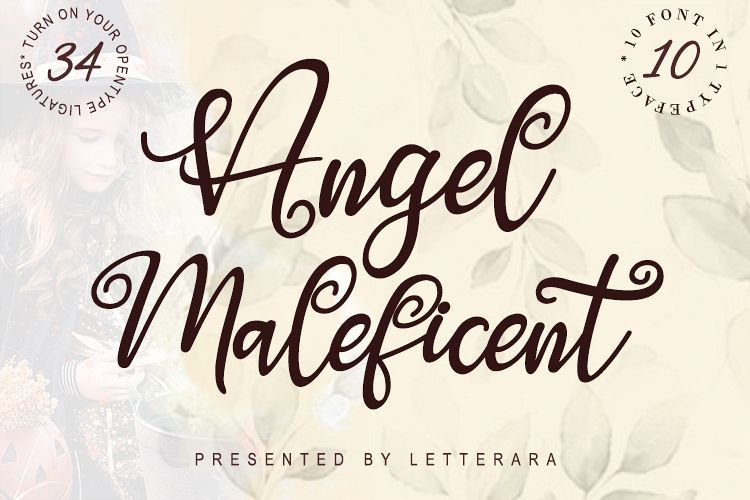
Angel Maleficent Font
Angel Maleficent is a beautiful font family, with its different several styles perfectly working together to create bright standout designs!